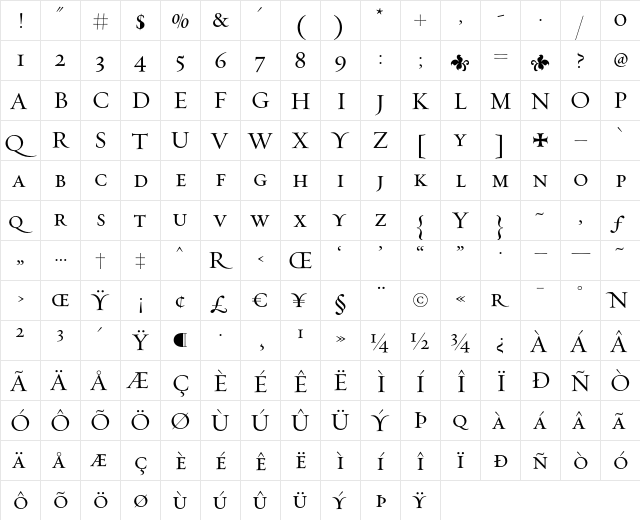
Requiem Text-HTF-SmallCaps
Design Context for Requiem Typeface
Requiem offers clean, dependable letterforms without strong stylistic allegiance, making it a practical choice for designers who need flexibility.